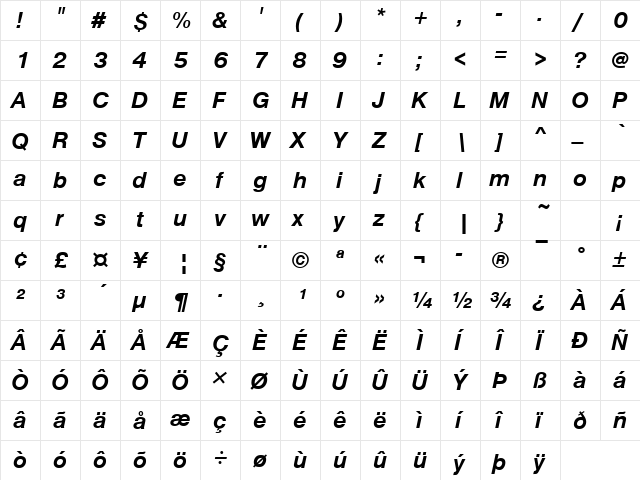
Nimbus Sans Becker D Bold Italic Font Preview
Design Context for Nimbus Sans Becker D Typeface
Nimbus Sans Becker D takes a measured approach to typography — its balanced proportions and neutral character make it a reliable workhorse for both digital and print work. The slanted form adds forward momentum and visual energy. The heavy weight commands attention and anchors typographic hierarchies.
Pro Tip: Try Nimbus Sans Becker D for annotation and caption copy alongside an upright companion — the contrast in angle creates a dynamic but ordered typographic system.